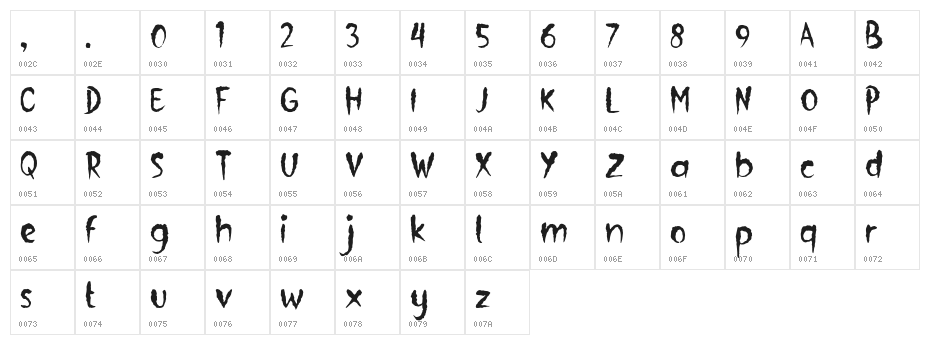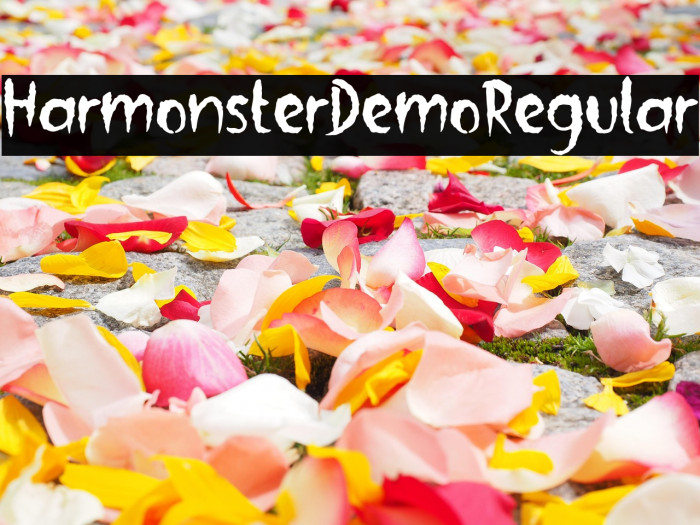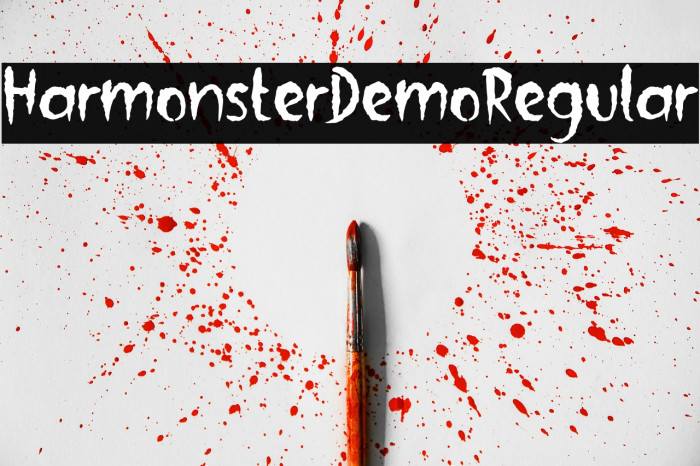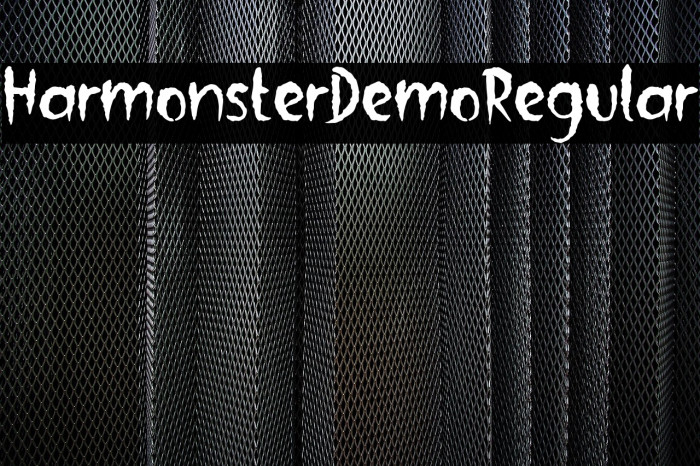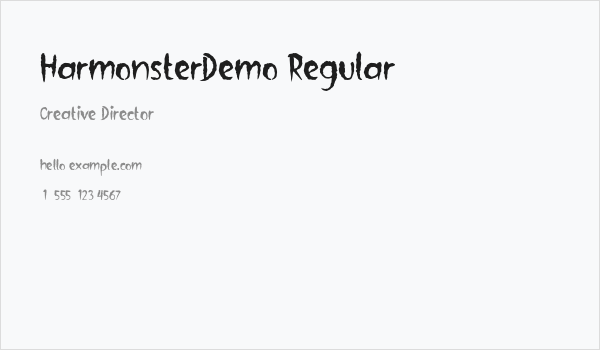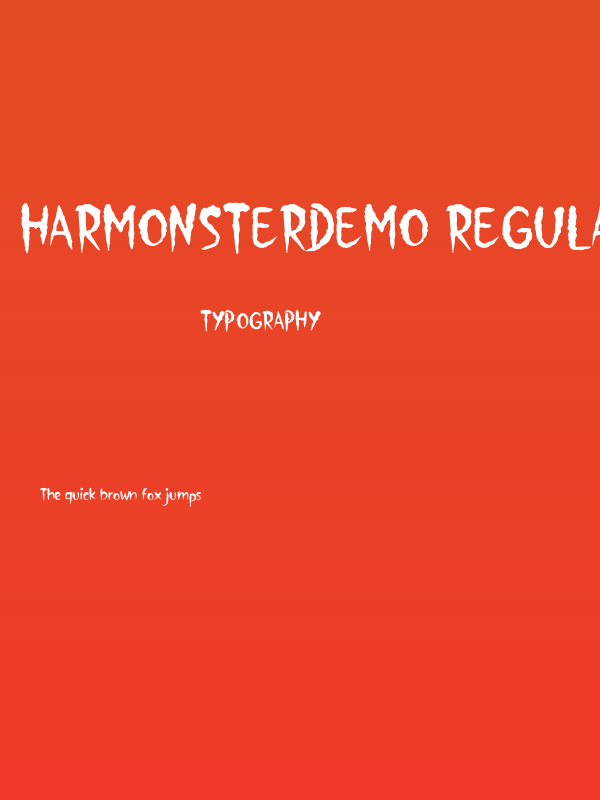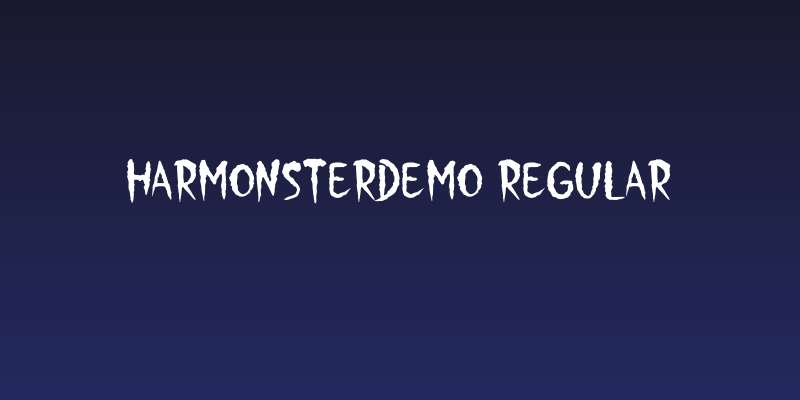
HarmonsterDemo-Regular Font
HarmonsterDemo-Regular Description
This font features a bold and jagged style, reminiscent of horror or thriller themes. The characters have an irregular, hand-drawn appearance with sharp edges and uneven strokes, giving it a raw and edgy look. The uppercase and lowercase letters maintain a consistent style, with the uppercase being slightly more pronounced. The numbers follow the same aesthetic, ensuring uniformity across the font. This typeface is ideal for creating a dramatic and intense atmosphere, making it suitable for projects that require a touch of the macabre or mysterious.
| Proposed Projects | Perfect for horror movie posters, Halloween event flyers, spooky-themed merchandise, or any project needing a dramatic flair. |